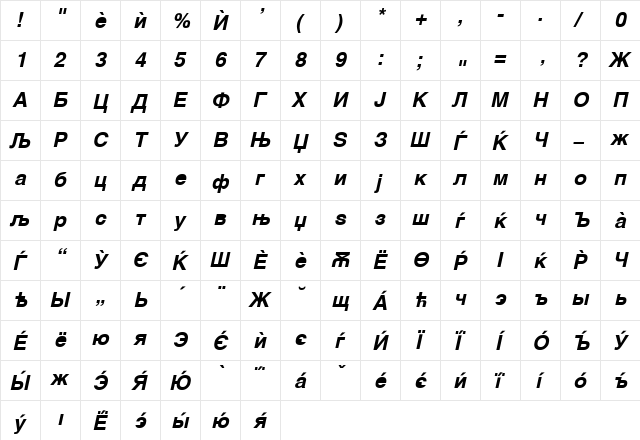
Makedonska Helvetika BoldItalic
Design Context for Makedonska Helvetika Typeface
Makedonska Helvetika is a composed and adaptable typeface that performs quietly and consistently across a wide range of design contexts. The dynamic lean of this cut emphasises speed and emphasis in any layout. Its bold stroke weight gives it real presence on the page.
Pro Tip: Use Makedonska Helvetika for emphasis, pull quotes, and subheadings where its slanted energy can add rhythm to the layout.